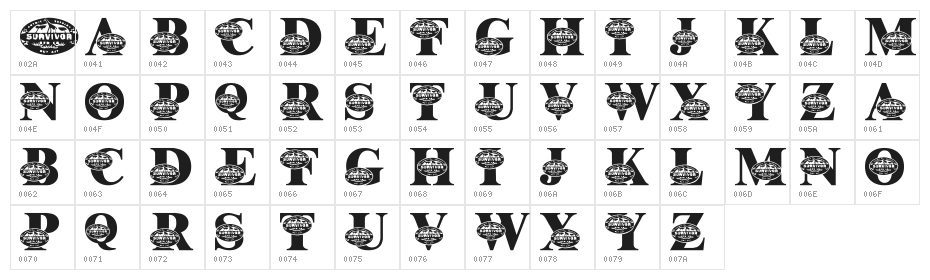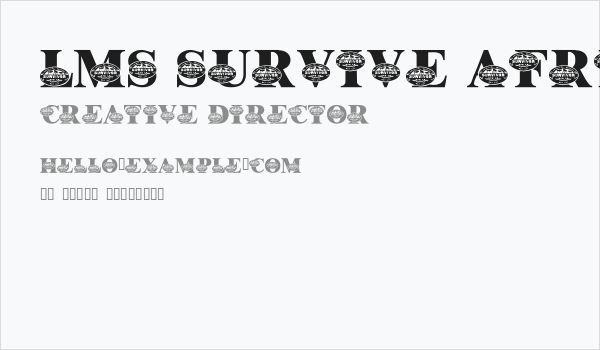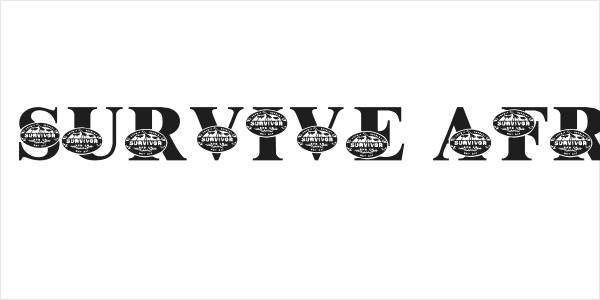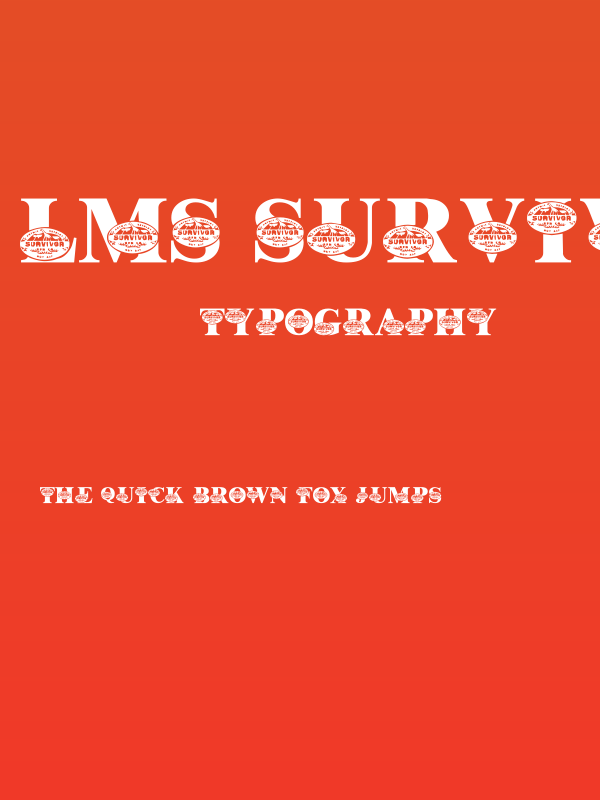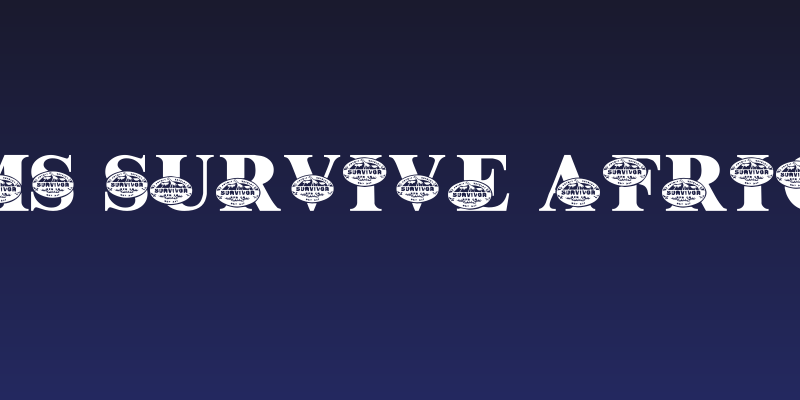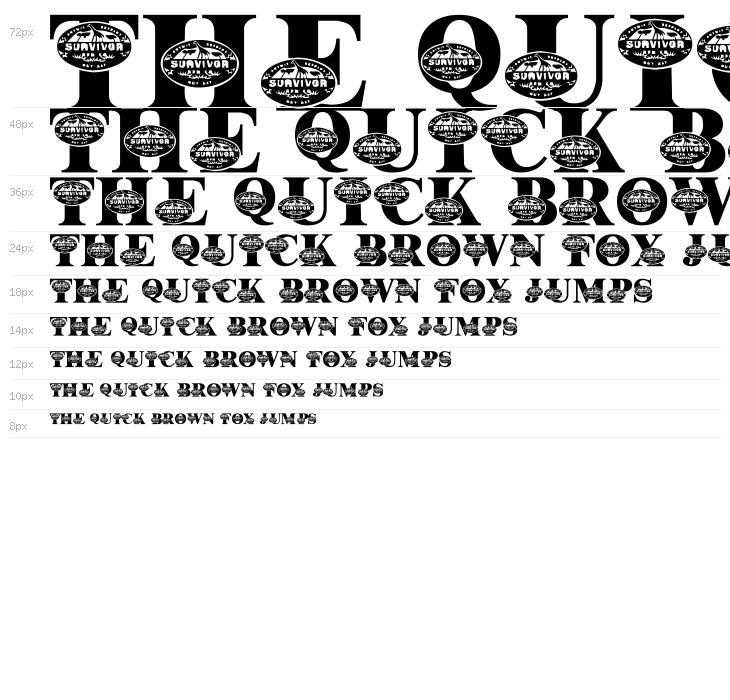
LMS Survive Africa Font
LMS Survive Africa Description
This font features a bold and adventurous style, reminiscent of rugged landscapes and survival themes. The letters are characterized by strong, angular lines and a solid, impactful presence. Each character is designed with a unique flair, incorporating elements that suggest resilience and strength. The font's design is both eye-catching and memorable, making it suitable for projects that require a bold statement. Its distinct style is perfect for capturing attention and conveying a sense of adventure and exploration.
| Overall Style | Adventurous, Rugged |
| Use Case | Logos, Posters, Branding |
| Proposed Projects | Ideal for outdoor adventure branding, survival-themed posters, and bold logo designs. |